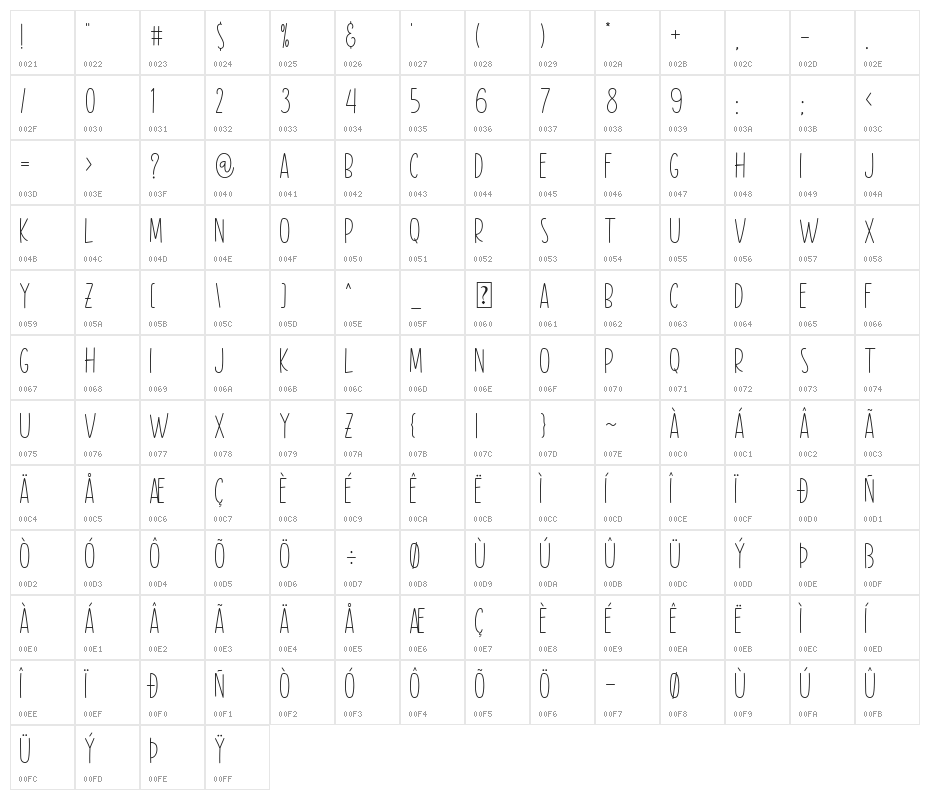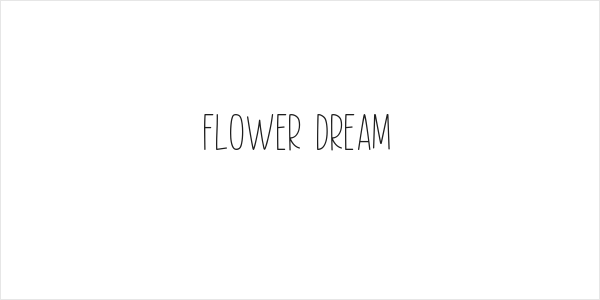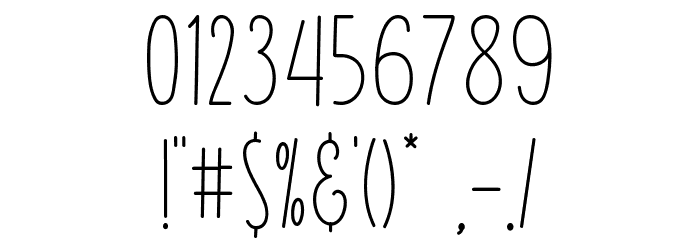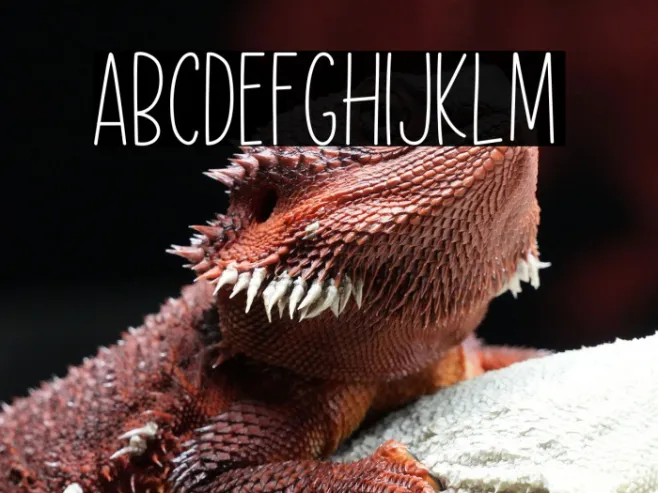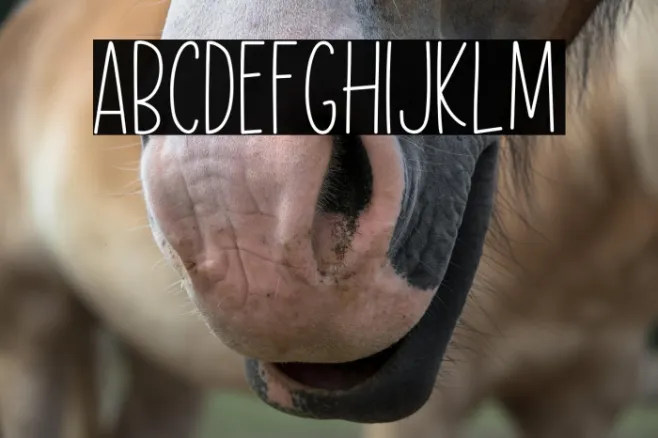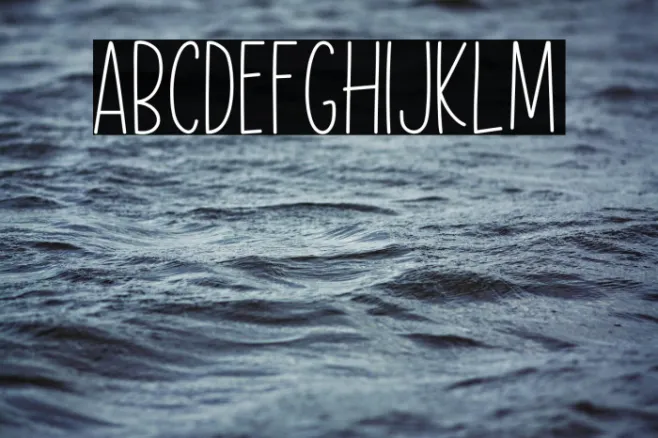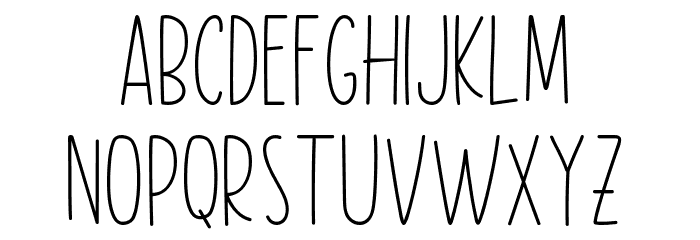
Flower Dream Font
Flower Dream Description
This font features a playful and whimsical design, characterized by its tall and narrow letterforms. The strokes are consistent in width, giving it a clean and modern appearance. The characters have a hand-drawn quality, with slight irregularities that add charm and personality. The uppercase and lowercase letters maintain a uniform height, enhancing readability. The numerals and special characters are designed to match the overall style, ensuring a cohesive look across all text elements.
| Proposed Projects | Ideal for children's books, greeting cards, playful branding, and creative projects that require a whimsical touch. |